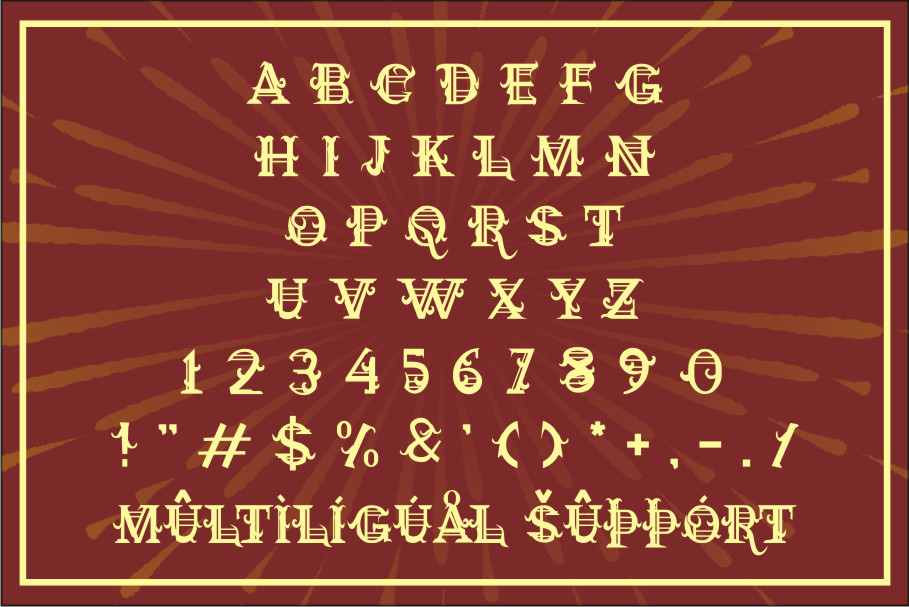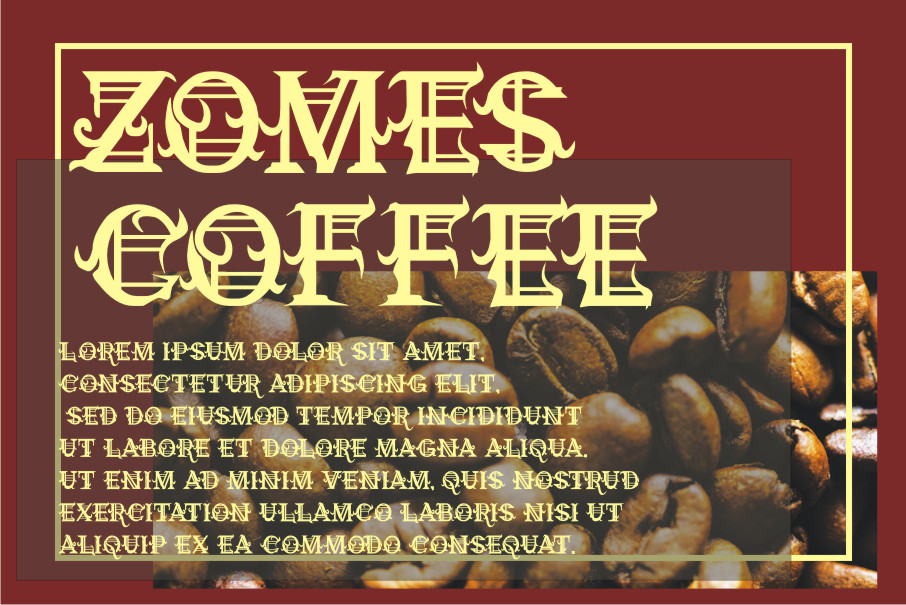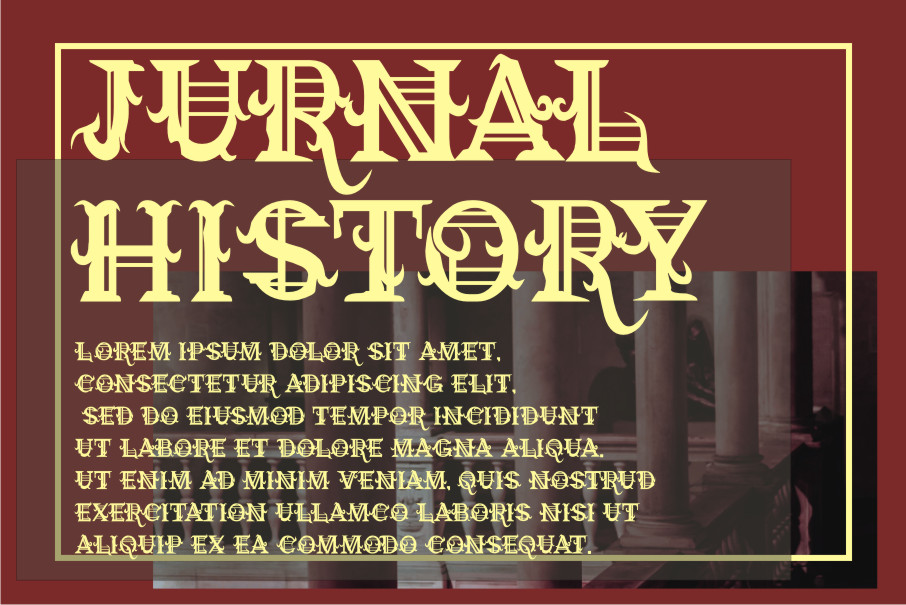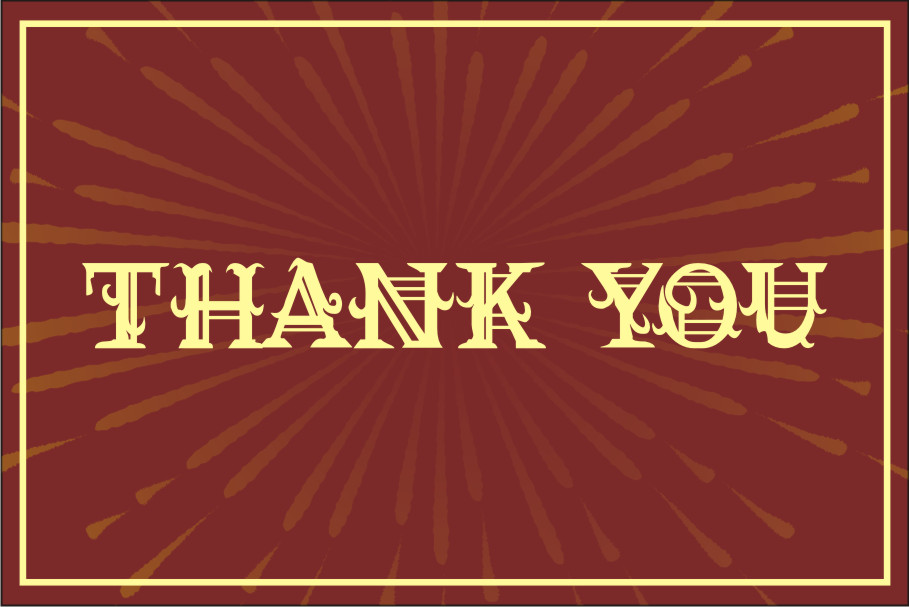
Mitlhina Victorian Font
Mitlhina Victorian Font is a bold, highly detailed and gothic styled blackletter font. It will look great on any design that requires an assertive, distinct touch.